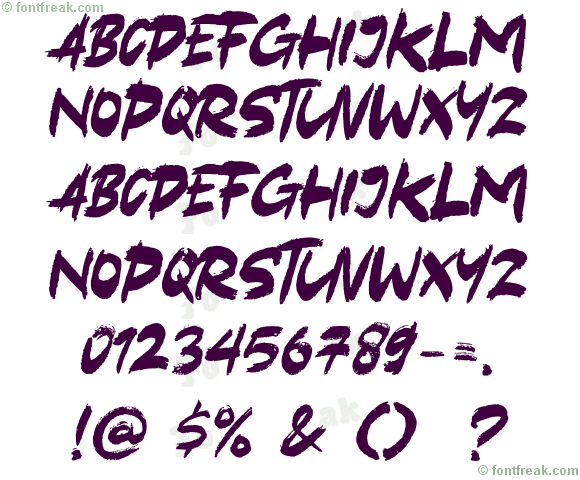
Black Hold
Black Hold, created by Syaf Rizal, is a striking display font that captures attention with its bold, artistic flair. This font belongs to the decorative category, featuring a unique brush-style design that conveys energy and creativity. The visual characteristics of Black Hold are defined by its thick stroke weight, which creates a strong presence, and its irregular, hand-drawn aesthetic that adds a personal touch. The letters are spaced with an organic flow, enhancing readability while maintaining an artistic vibe. This font is perfect for a variety of applications, including eye-catching movie posters that demand viewer engagement, trendy restaurant menus that want to showcase culinary creativity, and vibrant social media graphics that stand out in crowded feeds. It's also an excellent choice for branding projects, especially for businesses looking to convey a modern and dynamic image. The target audience for Black Hold includes graphic designers, small business owners, and content creators who seek a distinctive typeface to elevate their visual identity. The unique brush strokes and bold presence of Black Hold make it an ideal choice for projects that require a touch of flair and personality. Whether you are designing an event flyer or crafting a logo, this font will leave a memorable impression. For those interested in adding this distinctive typeface to their collection, a Black Hold font free download is available, making it accessible for both personal and commercial use. This font stands out not only for its aesthetic appeal but also for its versatility, allowing it to be used across a diverse range of creative projects while maintaining a cohesive and impactful look.